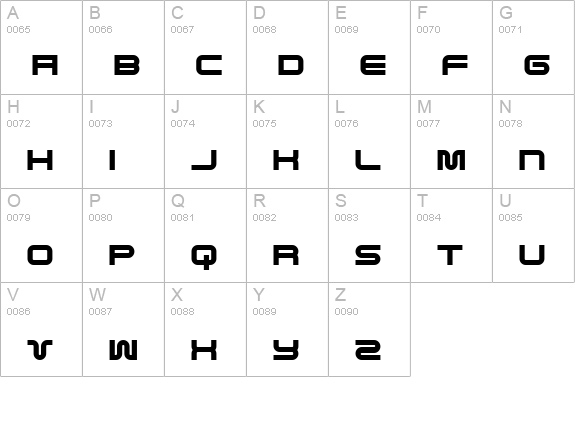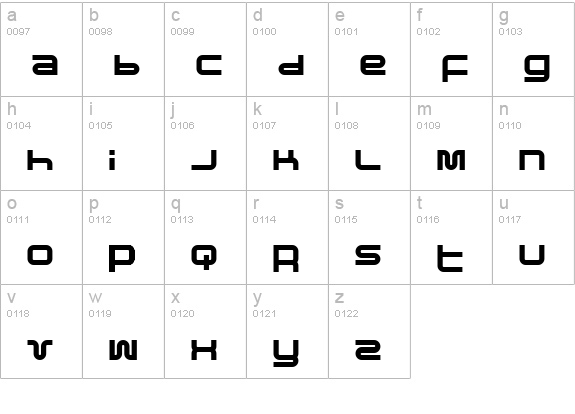
Pfuk Font Details
Pfuk font is a stunning display typeface that is sure to make a bold statement in any design project. With its unique and intricate letterforms, this font is perfect for headlines, logos, and branding materials. But what sets Pfuk font apart from the rest is that it is not only visually appealing, but it is also free to use. Yes, you read that right - this remarkable font is freely available to download at FontsMarket.com. Whether you're a professional designer looking to add a touch of elegance to your creations or a casual user in need of a stylish font for personal projects, Pfuk font is the perfect choice. Its versatility allows it to be used in a wide range of design applications, making it a valuable asset for any creative endeavor. The attention to detail in Pfuk font is truly remarkable. Each letter is meticulously crafted to create a harmonious balance between elegance and legibility. The strokes flow seamlessly, creating a sense of fluidity and grace that is sure to captivate your audience. With its wide range of weights and styles, Pfuk font offers endless possibilities for customization. Whether you prefer a bold and impactful look or a more subtle and refined aesthetic, this font has got you covered. So why wait? Experience the beauty and versatility of Pfuk font today by downloading it for free at FontsMarket.com. Enhance your designs and make a lasting impression with this exceptional typeface.